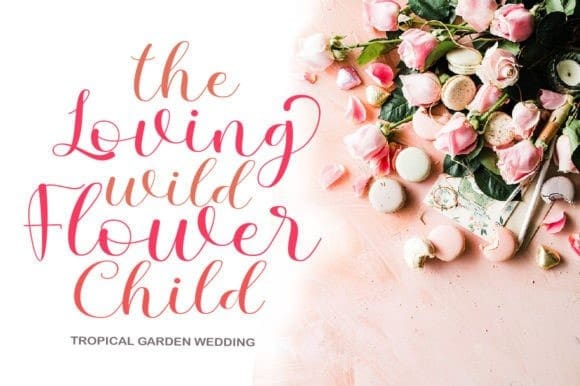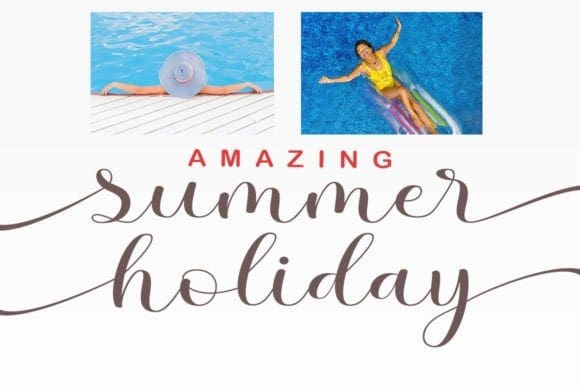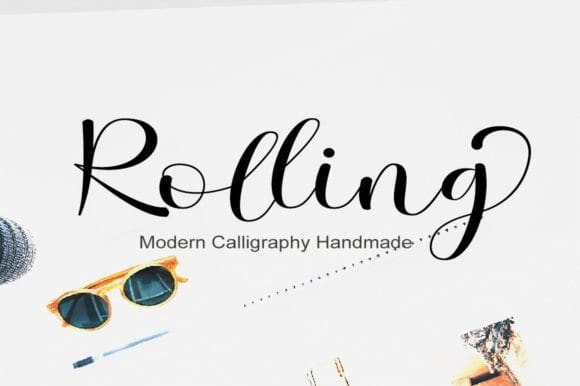
Rolling Script Font
Rolling Script Font is a stylish and incredibly elegant script font. It looks stunning on wedding invitations, thank you cards, quotes, greeting cards, logos, business cards, and every other design which needs a handwritten touch.